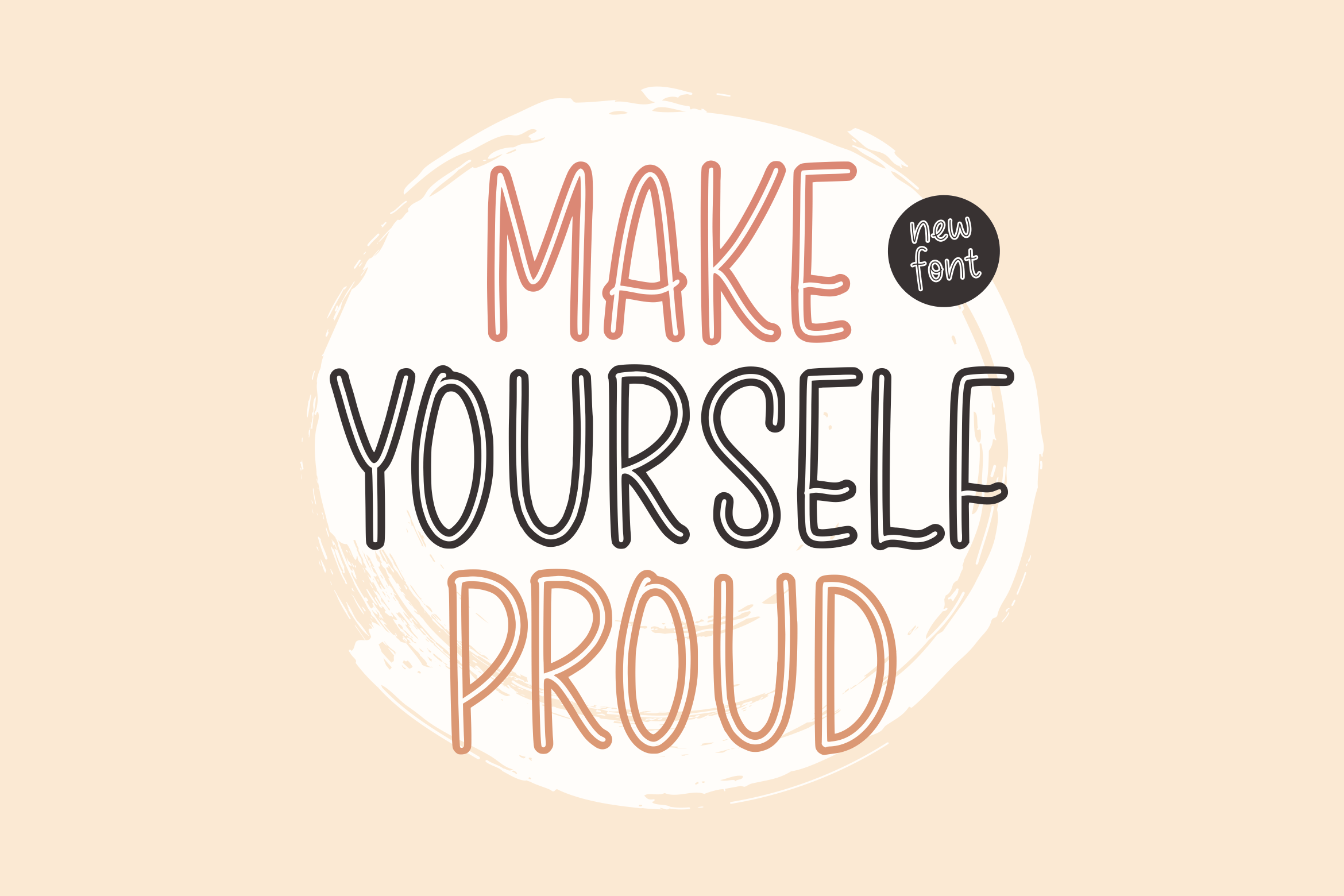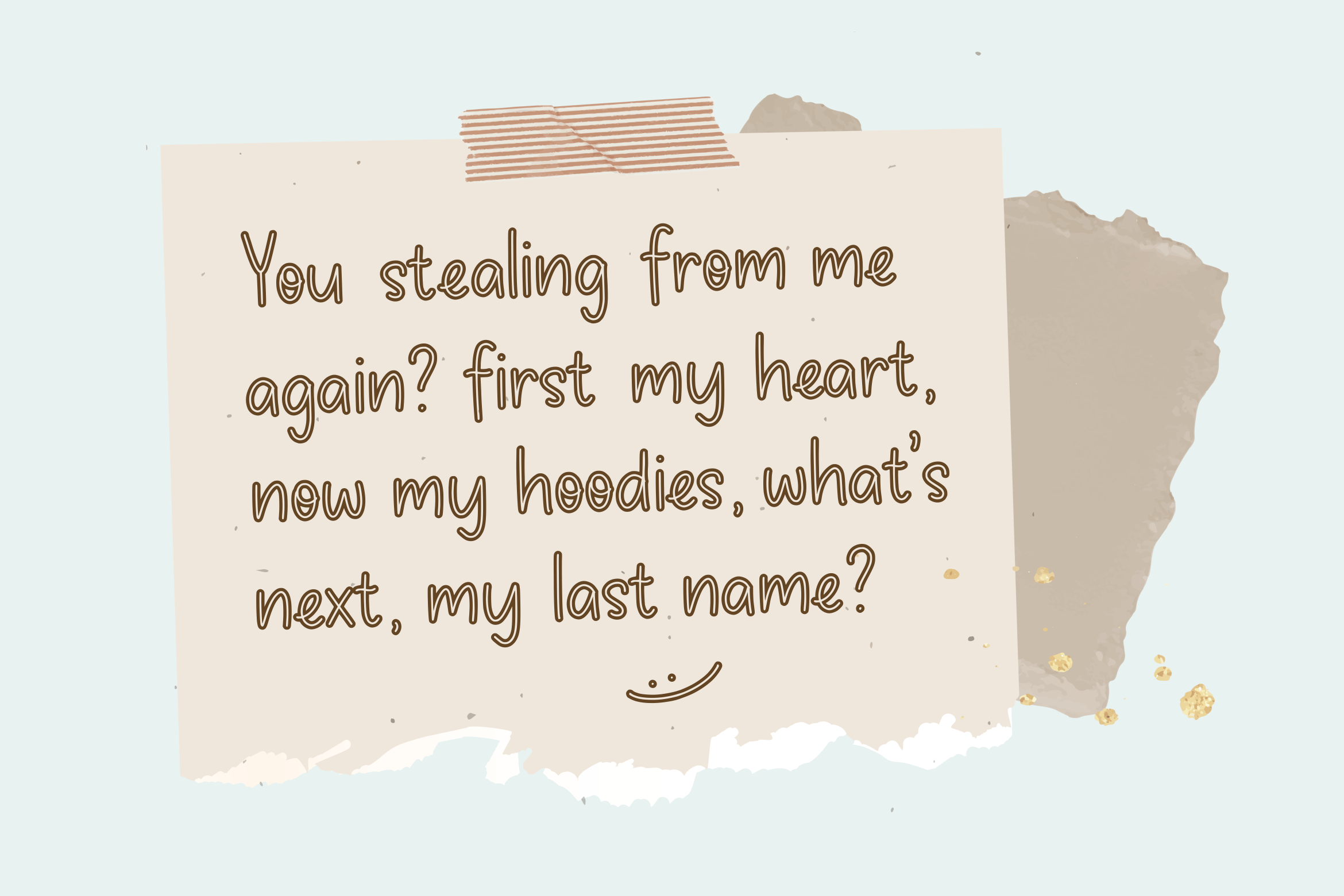
Chocobelly Font
Chocobelly Display Font
This is A Handwritten Inline Font. Chocobelly is perfect for product packaging, branding project, megazine, social media, wedding, or just used to express words above the background. This font includes OTF&TTF&Woff, Chocobelly also multilingual support.